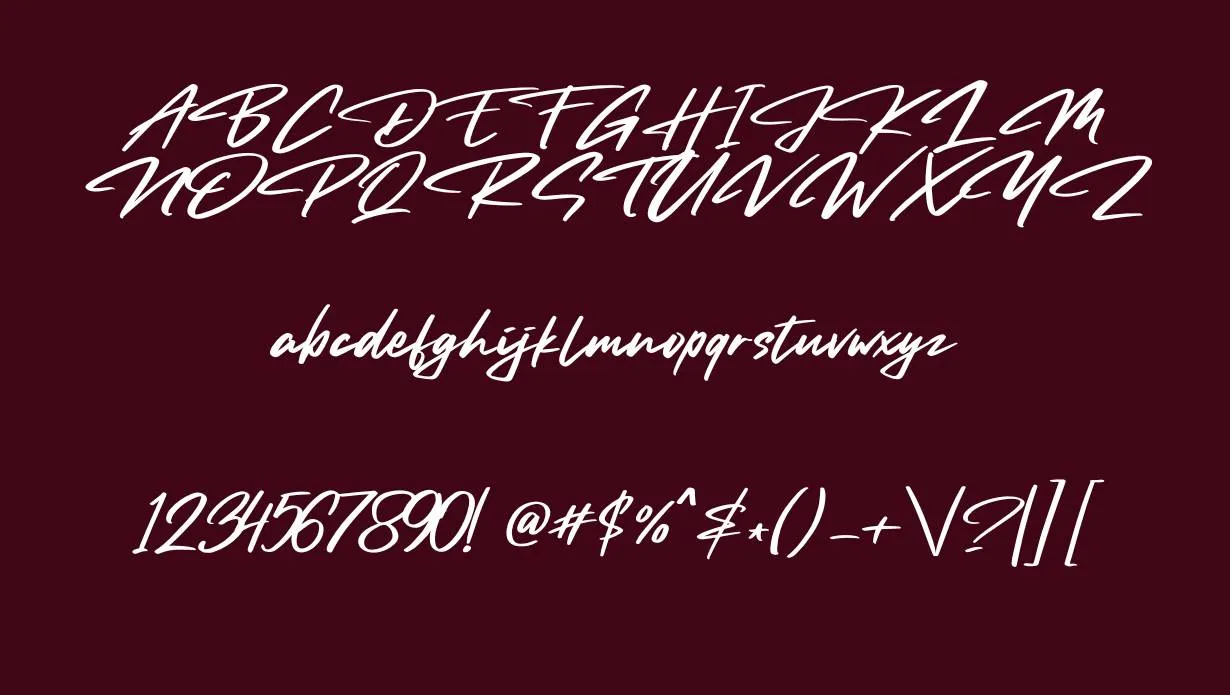
Algae Fantasy Font is a playful and imaginative typeface, often used in designs related to children, aquatic themes, and projects that aim to create a sense of underwater adventure.
Algae Fantasy Font Family
| Name | Algae Fantasy Font |
| Designer | Yandi Designs |
The font’s unique and whimsical style adds an element of joy and creativity to your designs.